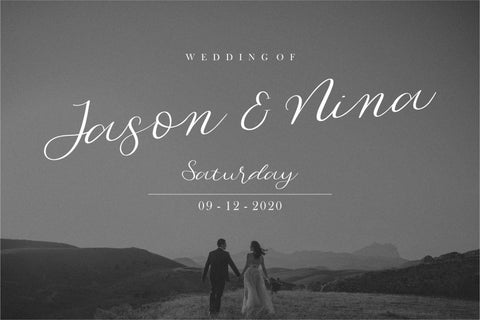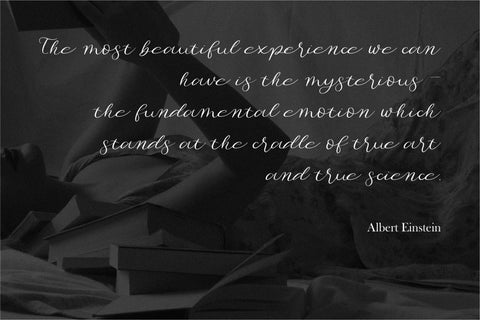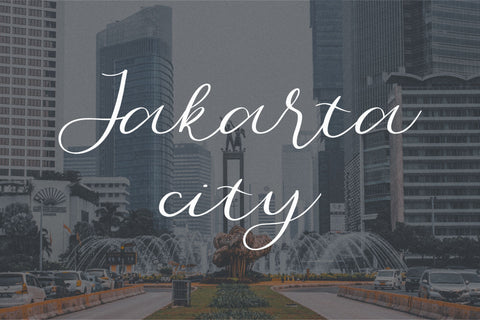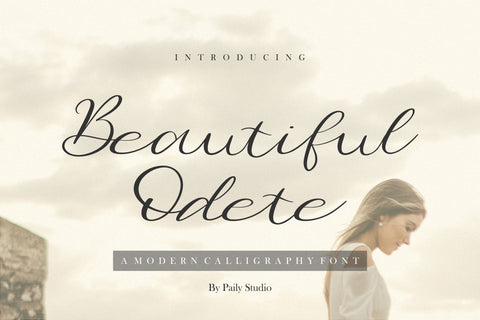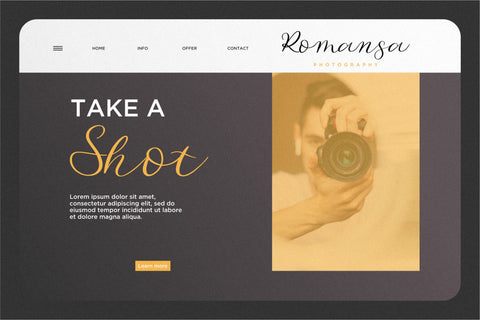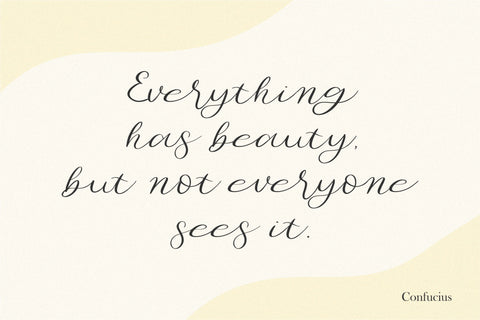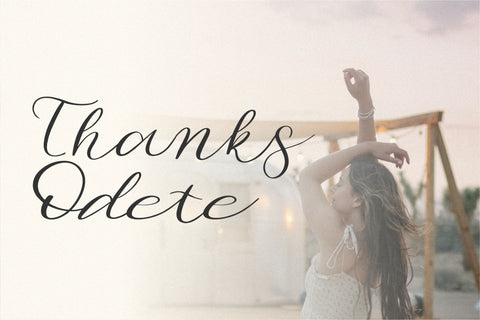
Beautiful Odete Modern Calligraphy Font
Beautiful Odete is a Modern Calligraphy Font.
Beautiful Odete can be used for wide ranges of application, such as wedding design, branding project, logo, poster, name card, invitations, social media posts, and others.